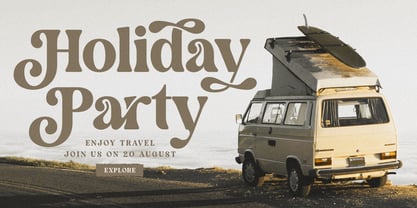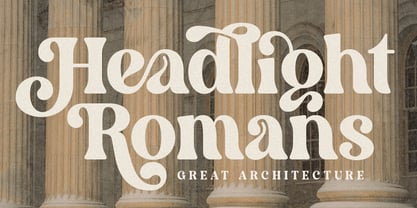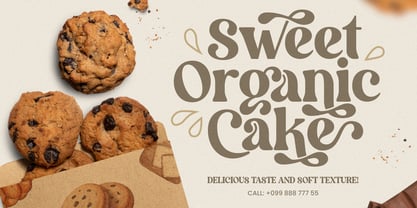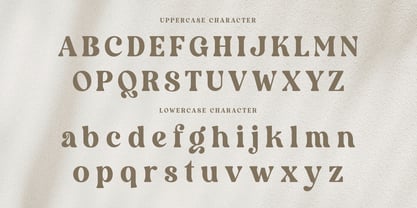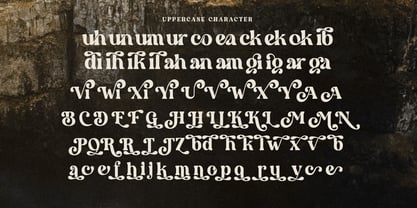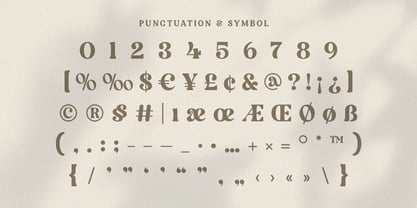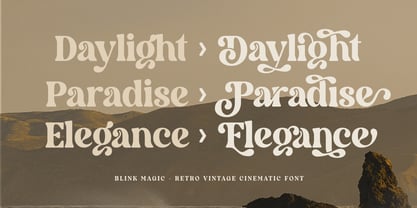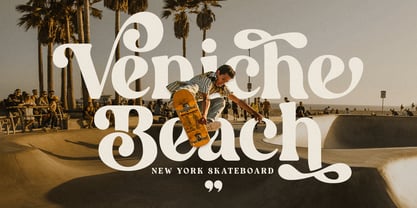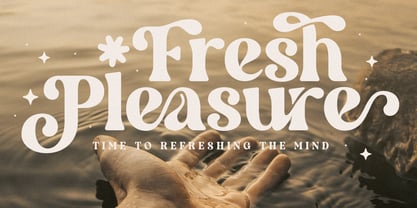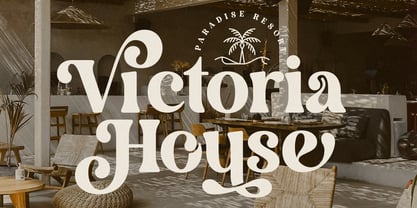
Blink Magic
The Blink Magic Font Family was designed by Zamroni Hamzah and published by Sensatype Studio. Blink Magic contains 2 styles and family package options. More about this family
Black Magic - Retro Vintage Cinematic Font
Black Magic is a bold retro vintage cinematic font designed to evoke a sense of nostalgia and timeless elegance. Inspired by classic film posters and vintage designs, this font brings a dramatic flair to any project, making it ideal for creating standout headlines, logos, or titles that leave a lasting impact. Its strong, bold letterforms command attention and exude a sense of power and authority.
The retro aesthetic of Black Magic gives a nod to the past while still being relevant for modern design projects. Whether you are working on film posters, retro branding, or vintage-themed event materials, this font provides the perfect blend of classic and contemporary appeal. Its versatile nature allows it to work beautifully across various media.
Use Black Magic to bring your design ideas to life, whether for cinema-themed projects, retro-inspired branding, or any creative endeavor where a touch of vintage drama is needed.
Black Magic Retro Vintage Cinematic Font Features:
• Alternate and Ligature Characters Ready
• Unique Punctuation, Number, and Symbol
• Uppercase and Lowercase
• Opentype Features
Multilingual Characters available for:
Afrikaans, Albanian, Asu, Basque, Bemba, Bena, Breton, Chiga, Cornish, Dutch, English, Estonian, Filipino, Finnish, Friulian, Galician, German, Gusii, Indonesian, Irish, Italian, Kabuverdianu, Kalenjin, Kinyarwanda, Luo, Luxembourgish, Luyia, Machame, Makhuwa-Meetto, Makonde, Malagasy, Manx, Morisyen, North Ndebele, Nyankole, Oromo, Portuguese, Quechua, Romansh, Rombo, Rundi, Rwa, Samburu, Sango, Sangu, Scottish Gaelic, Sena, Shambala, Shona, Soga, Somali, Spanish, Swahili, Swedish, Swiss.